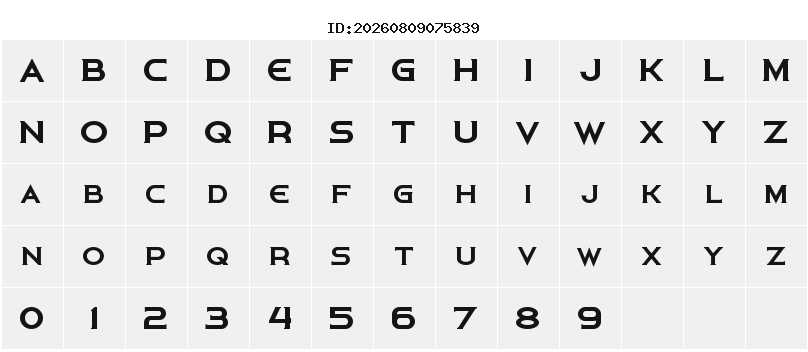
• Font Name: Persis
• Designer: Neale Davidson
About Persis.otf
Persis.otf is a modern, elegant sans-serif font designed for ultimate readability and visual harmony. Perfect for branding, headlines, web design, and print materials.